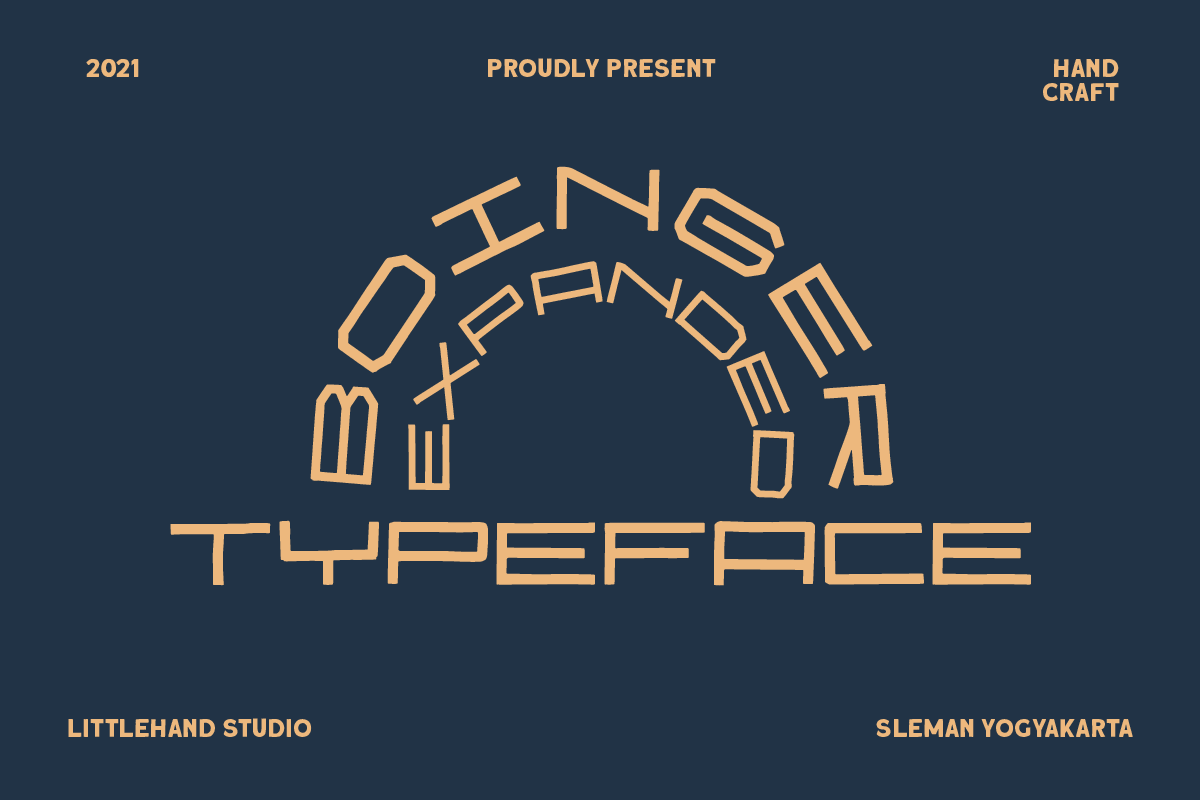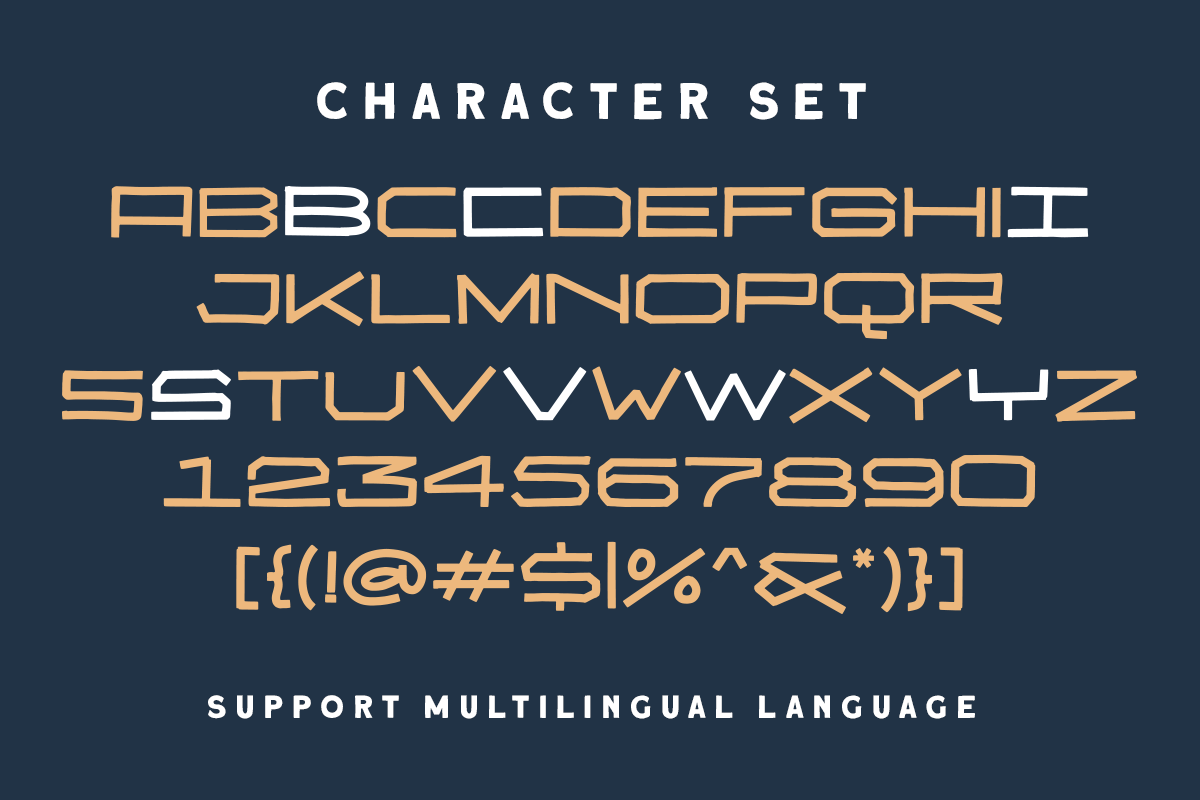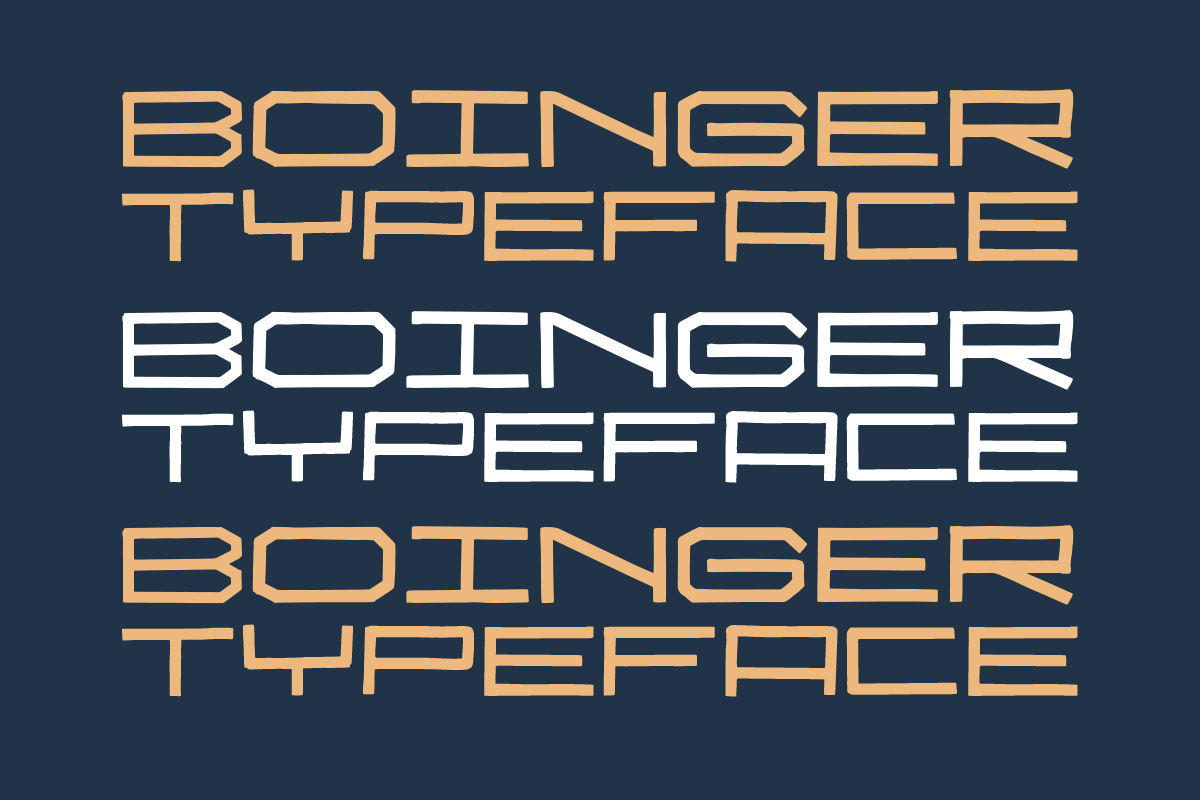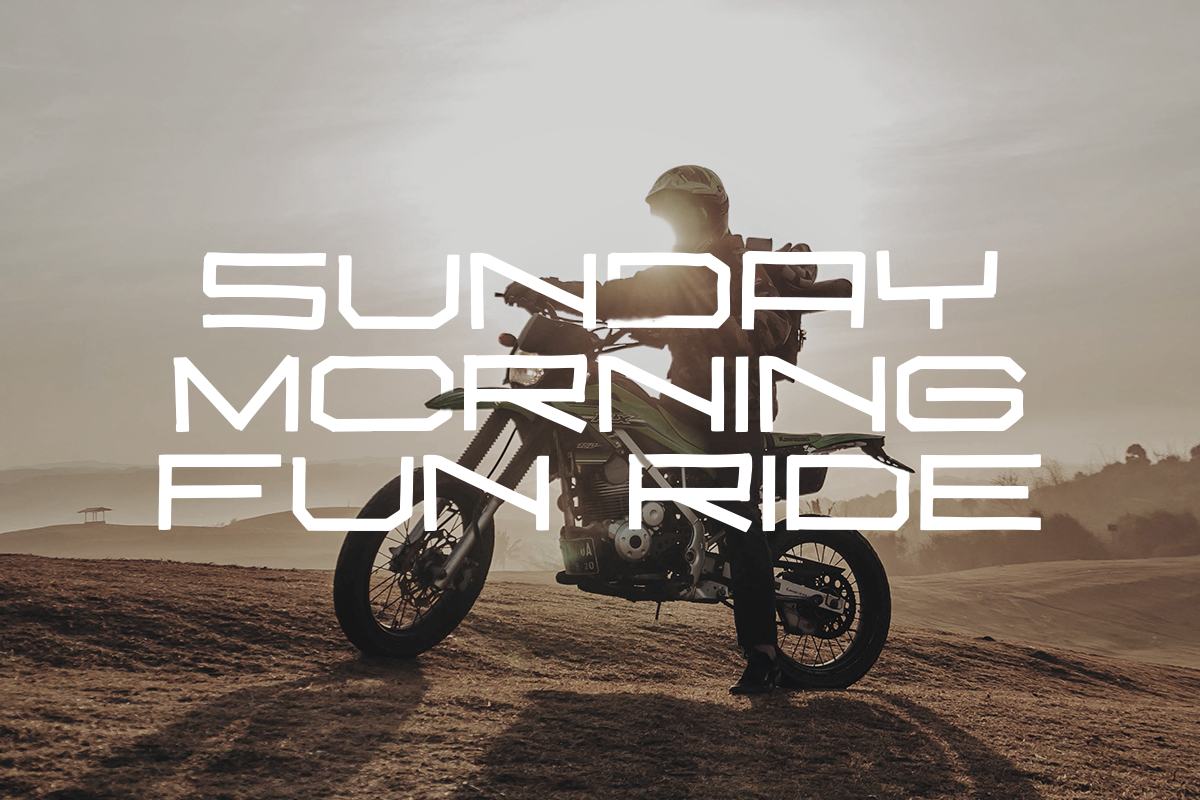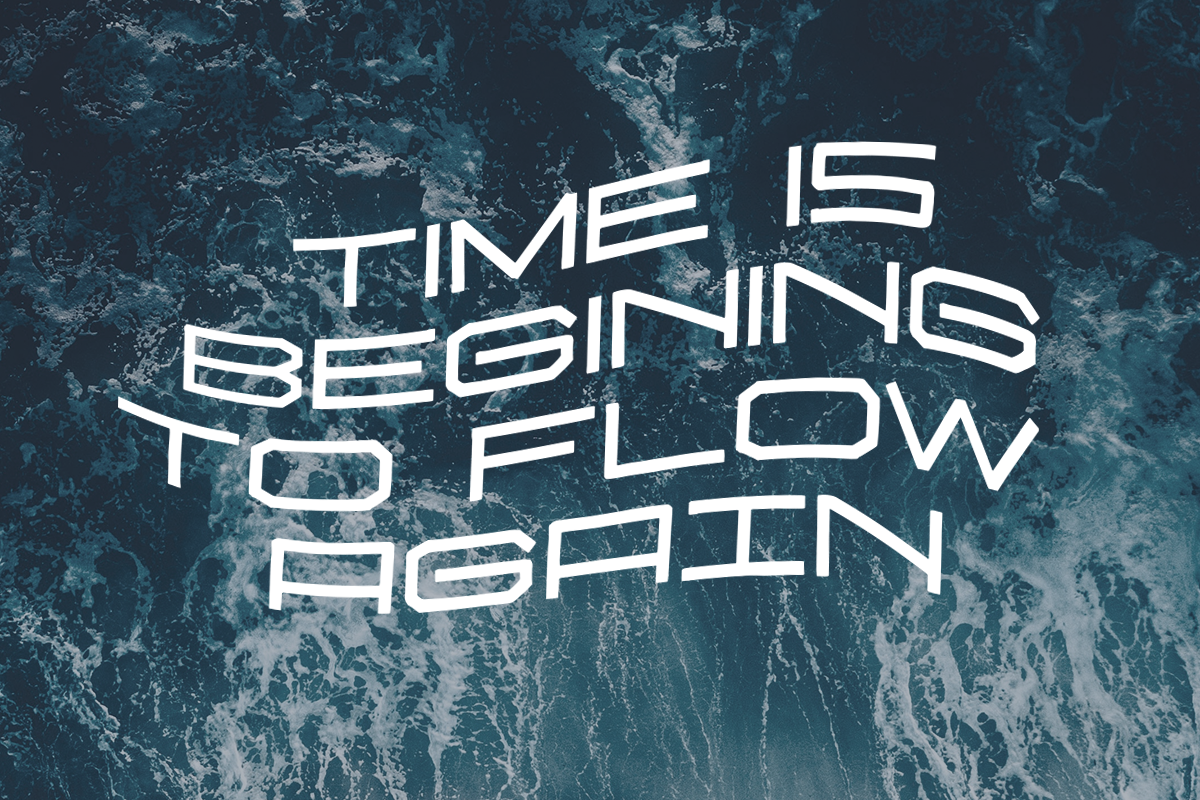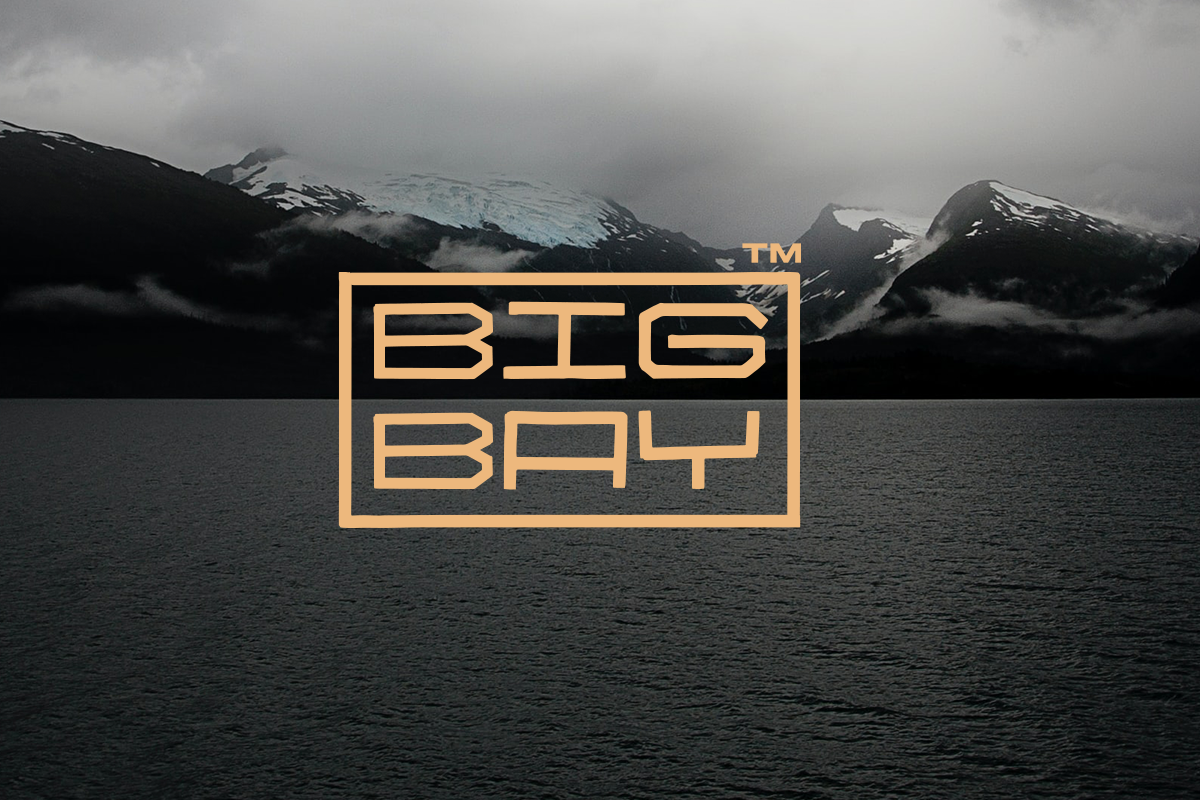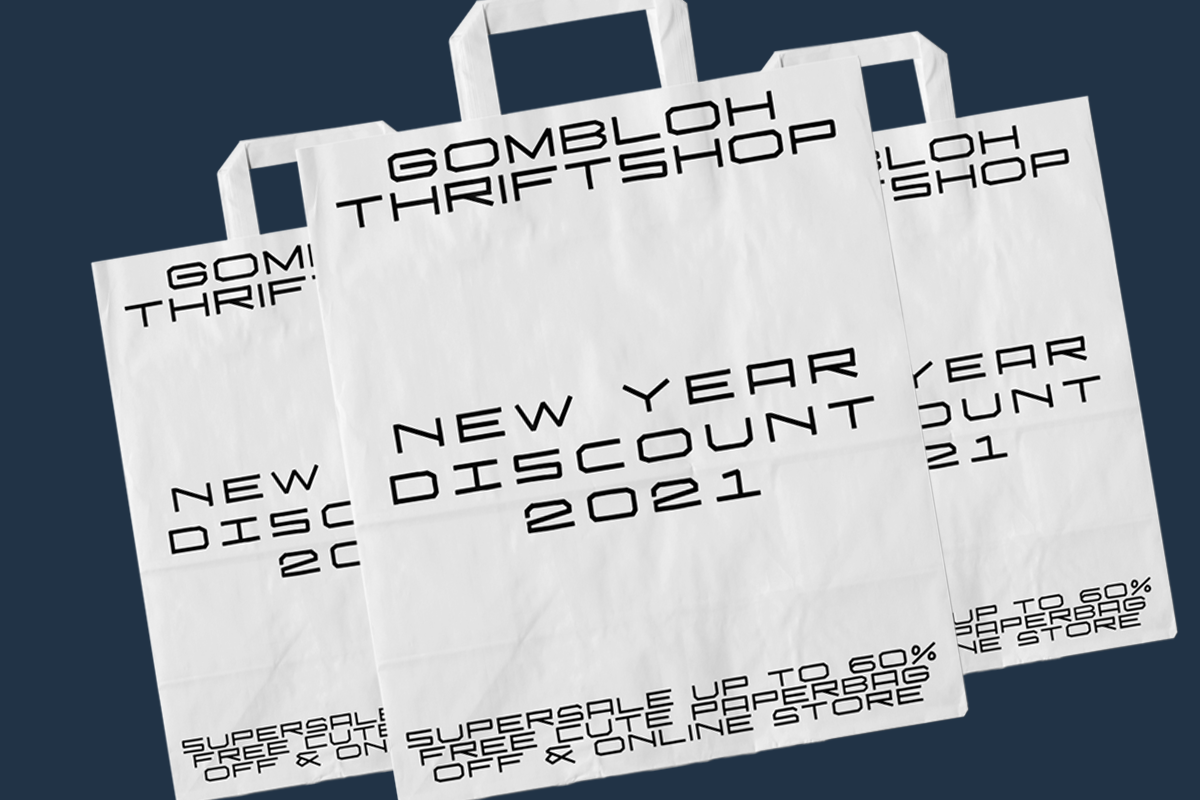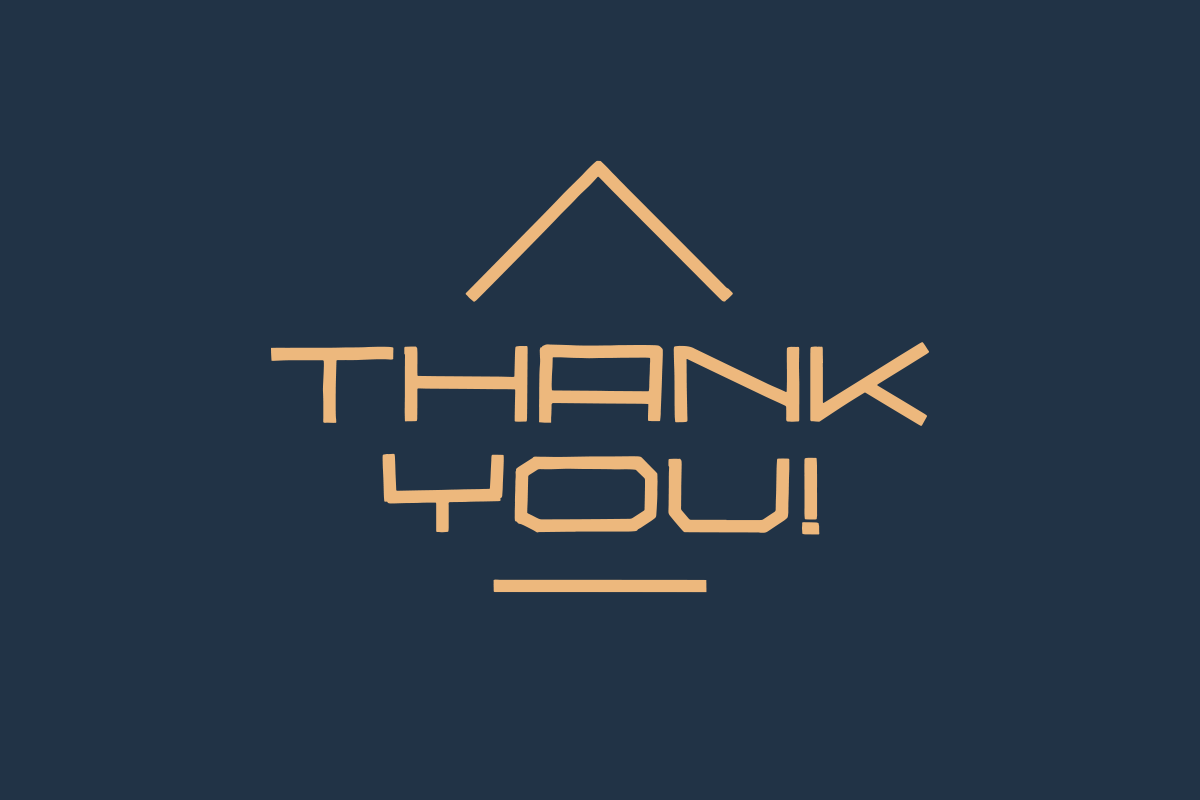
Boinger - Expanded Typeface
Introducing, Boinger - An Expanded Typeface. This font looks great and standout for tittle, headline, logo, etc. Perfectly to be applied to the other various formal forms such as invitations, labels, logos, magazines, books, greeting / wedding cards, packaging, fashion, make up, stationery, novels, labels or any type of advertising purpose.
- alternates & ligatures